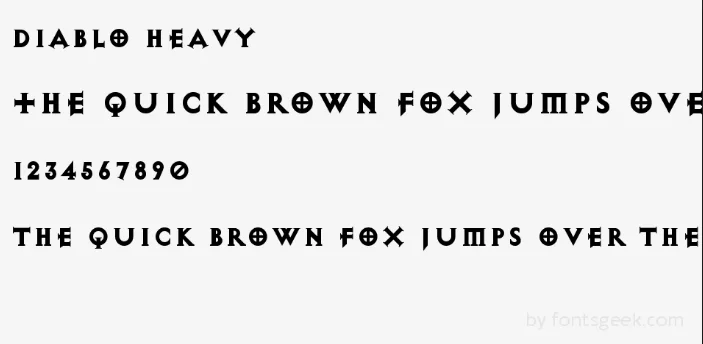
Designer
Jonathan Barnbrook
About Diablo Font
The Diablo Font commonly refers to the distinctive lettering used in Blizzard Entertainment’s Diablo game series. The iconic logo typography is based on Exocet, a decorative display typeface with sharp, incised forms and an ancient, mystical feel. Its dramatic letter shapes perfectly complement the dark fantasy atmosphere of the game. Over time, the Diablo logo has also featured custom modifications and stylized treatments, but Exocet remains the primary typographic influence. The font style is widely associated with fantasy, gothic, and game-related designs. It is frequently emulated by Diablo-inspired display fonts.